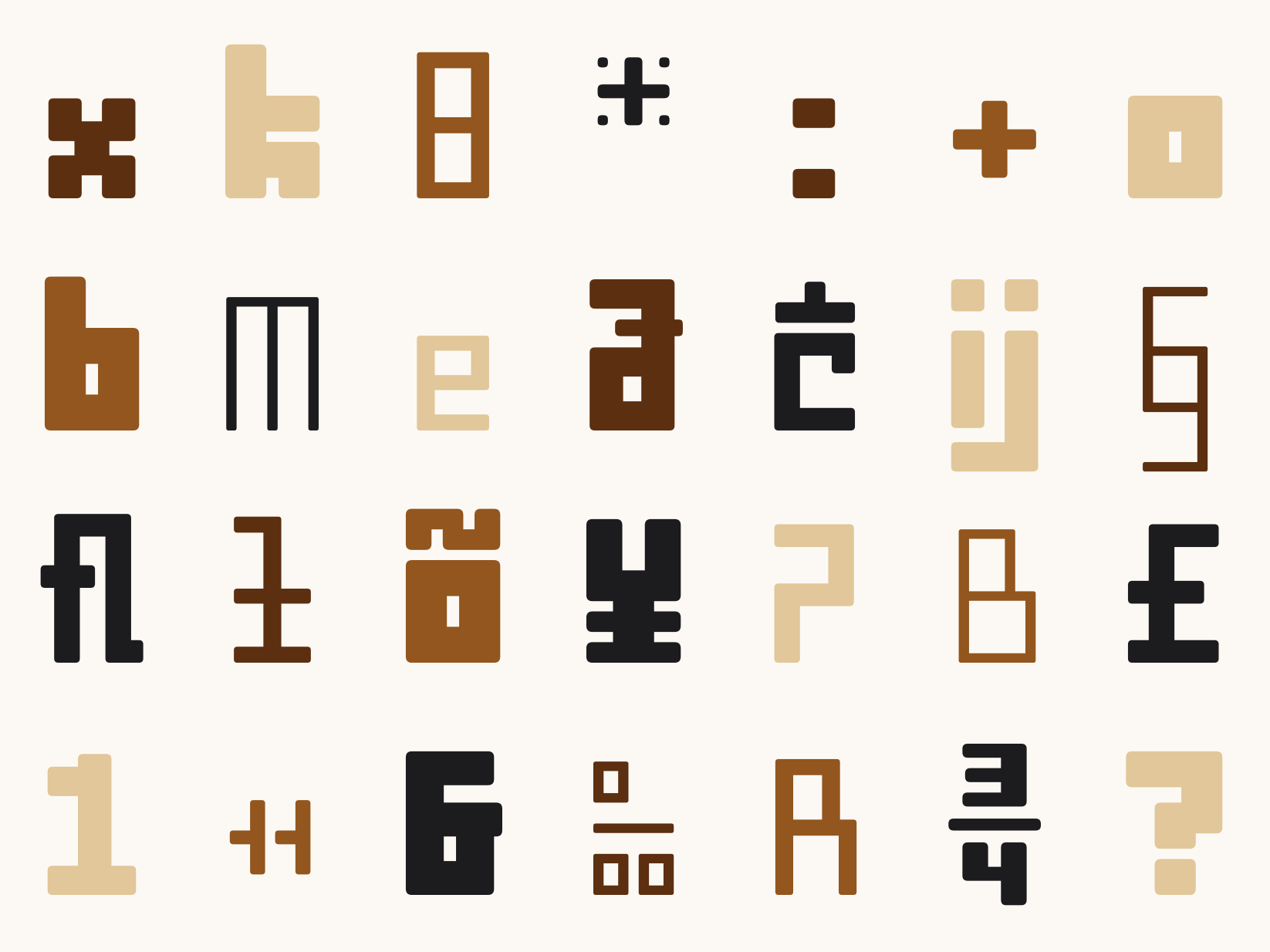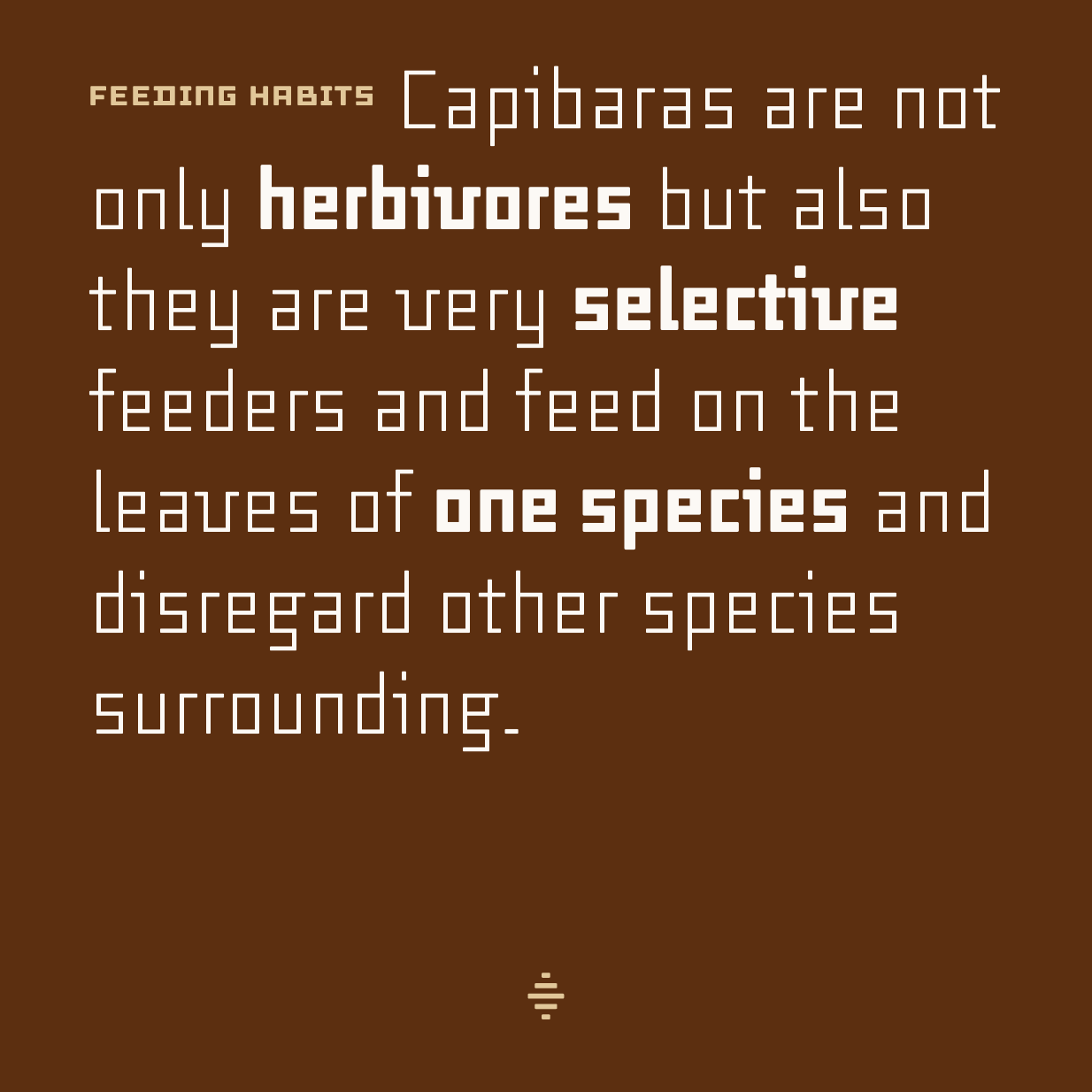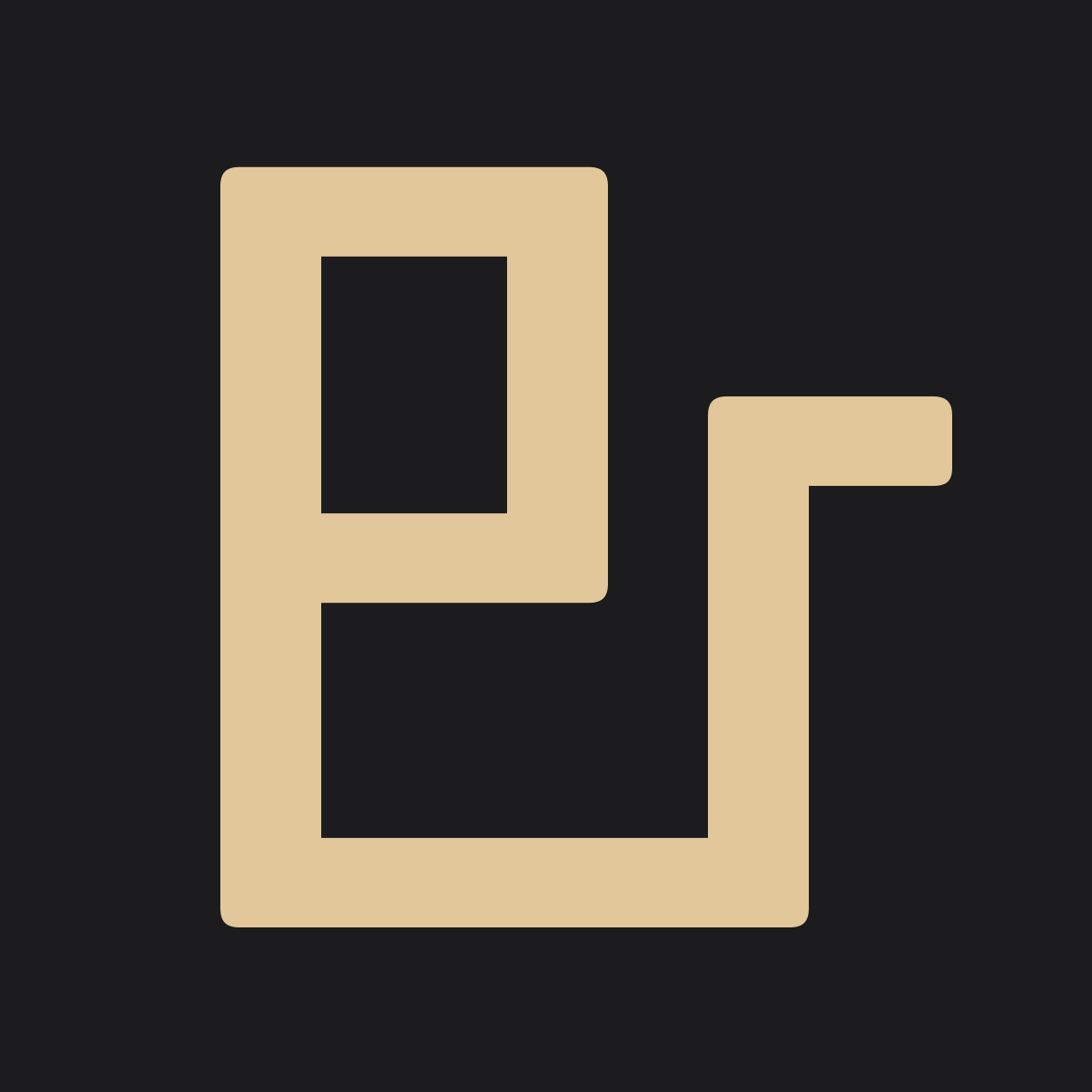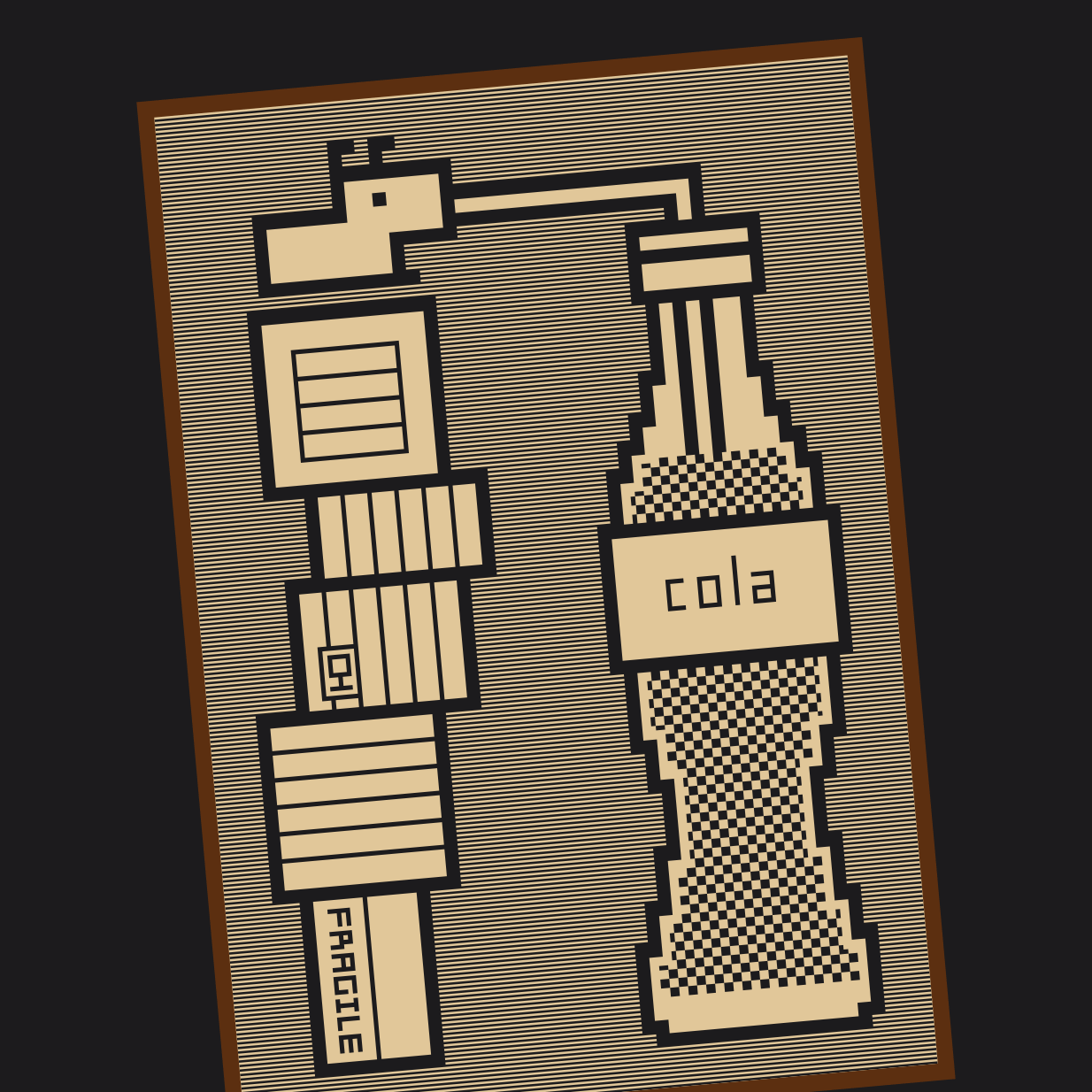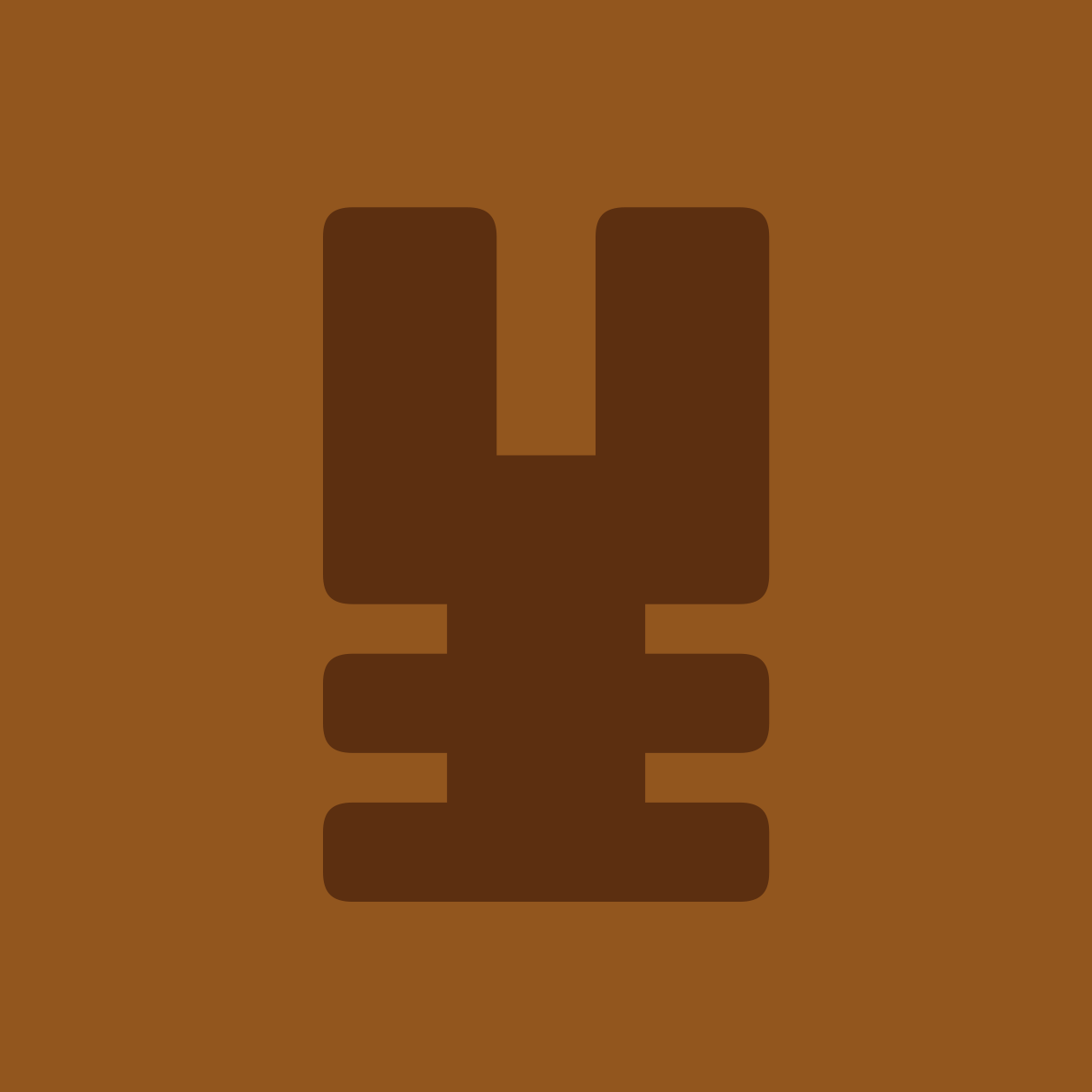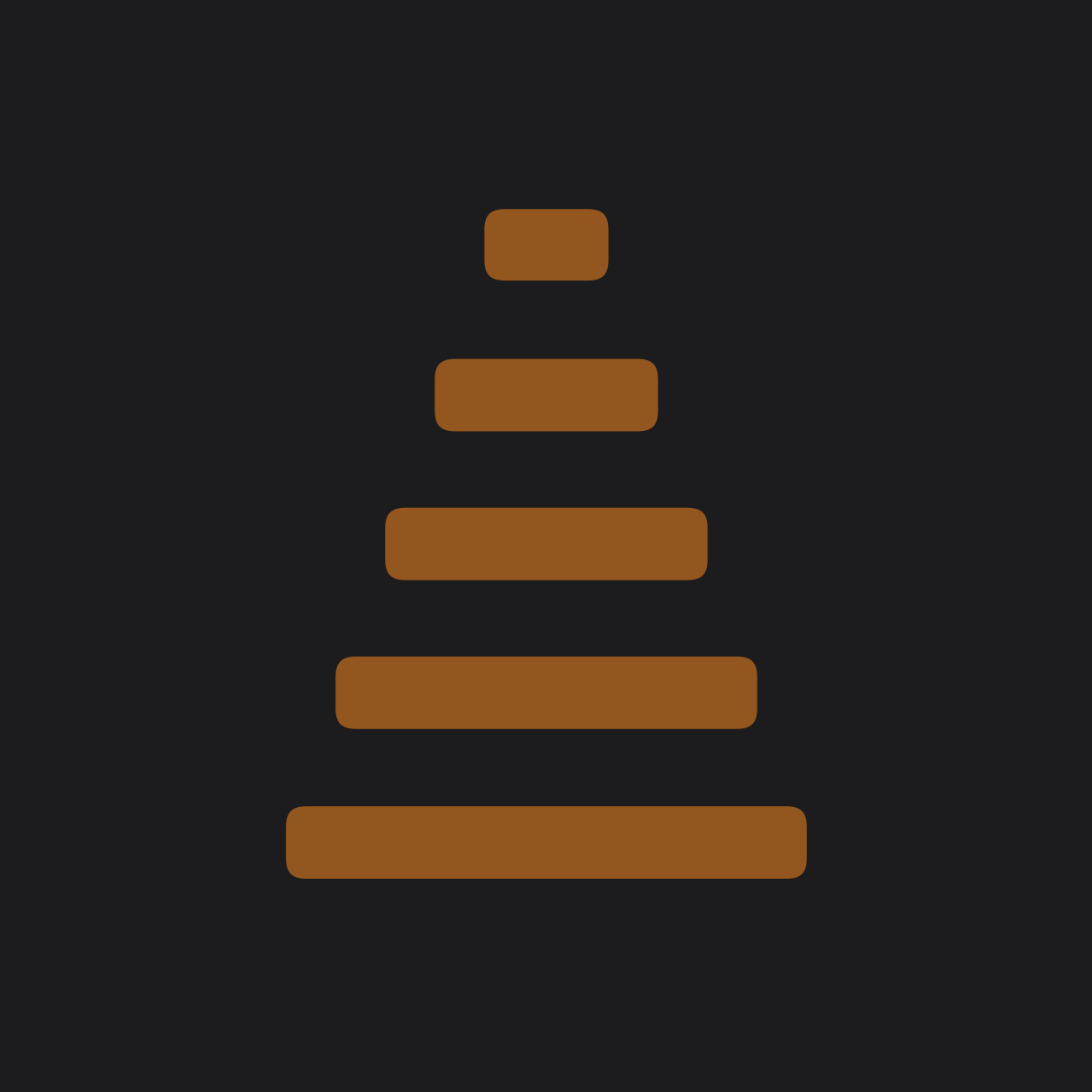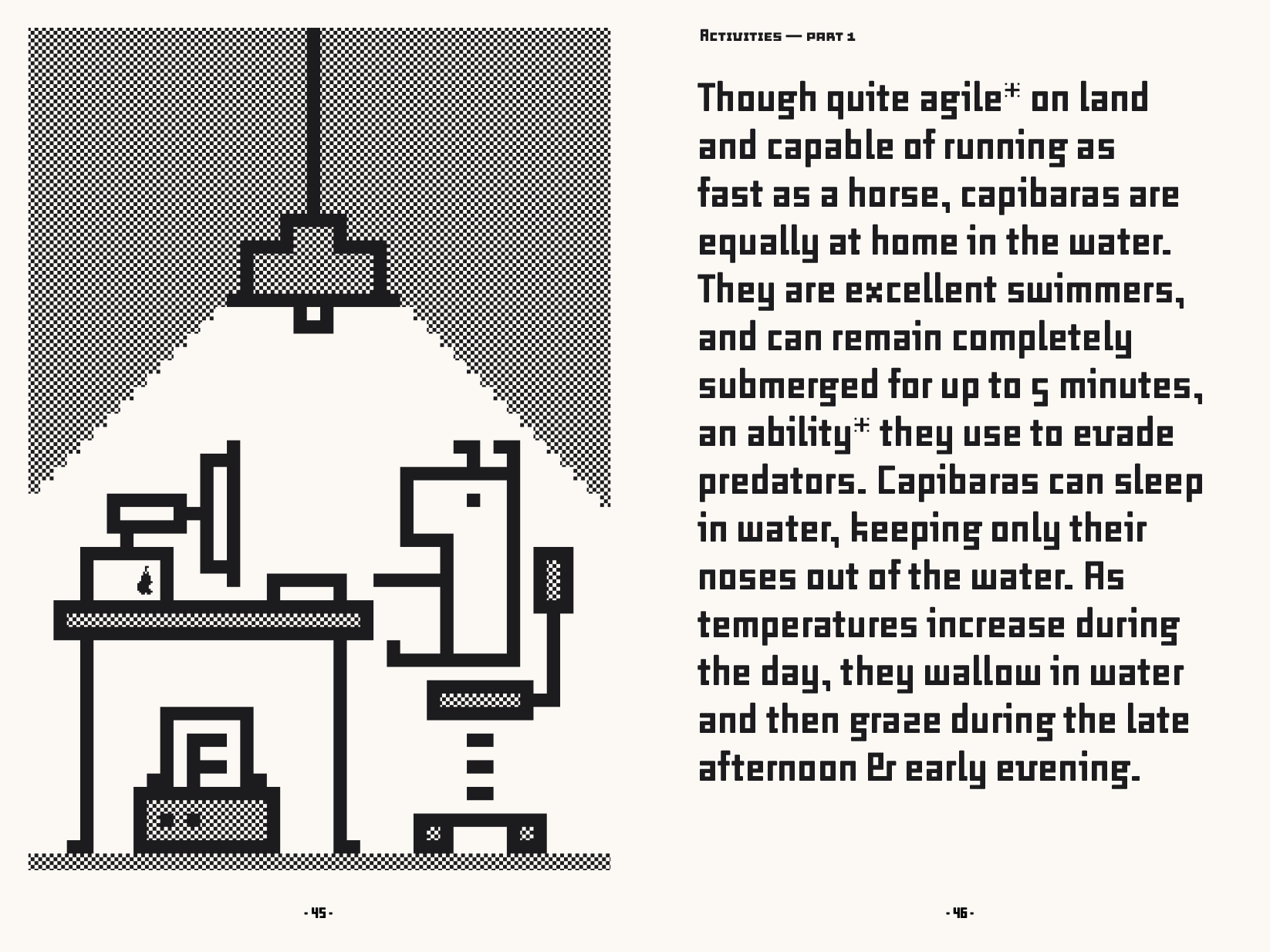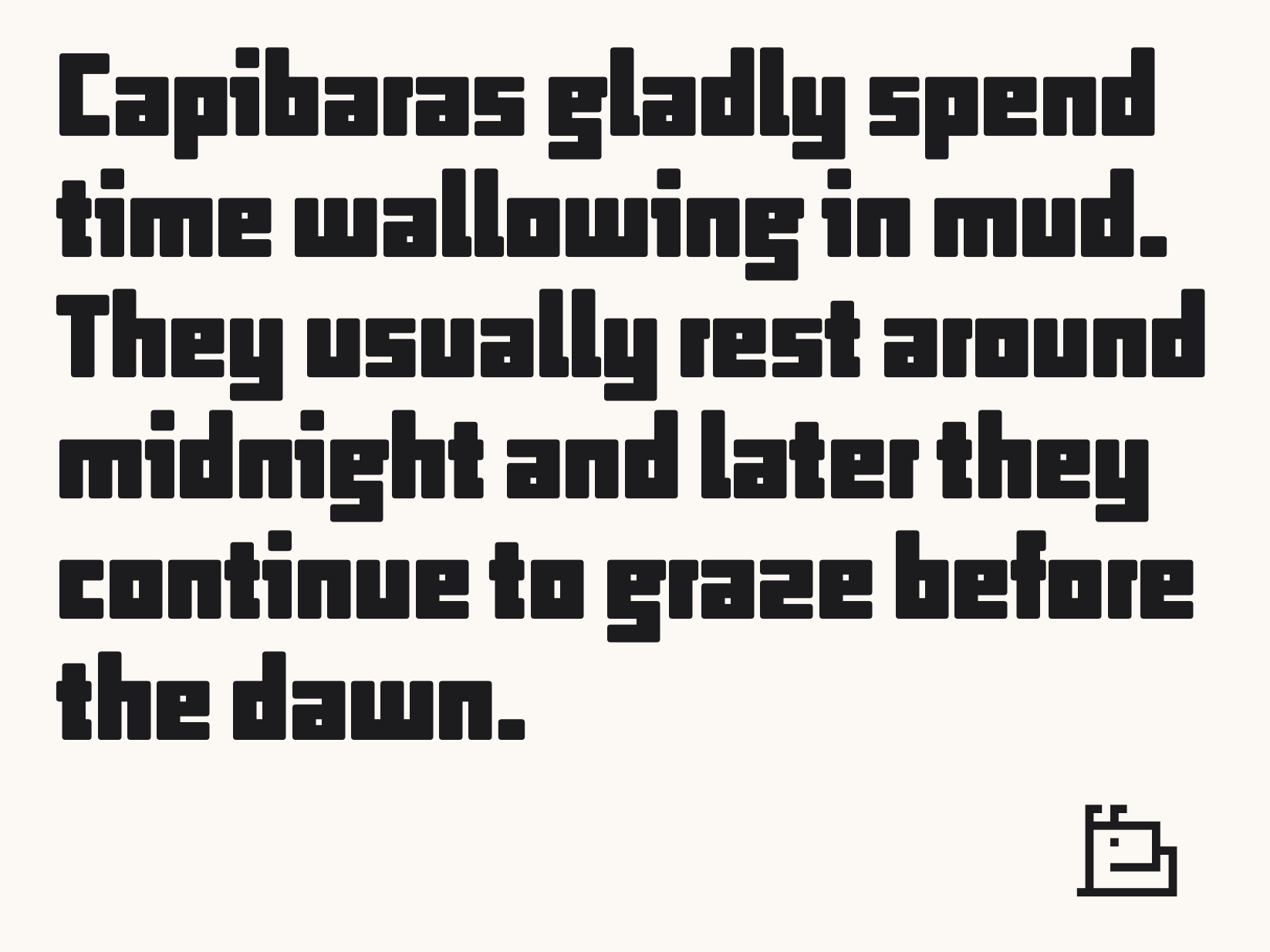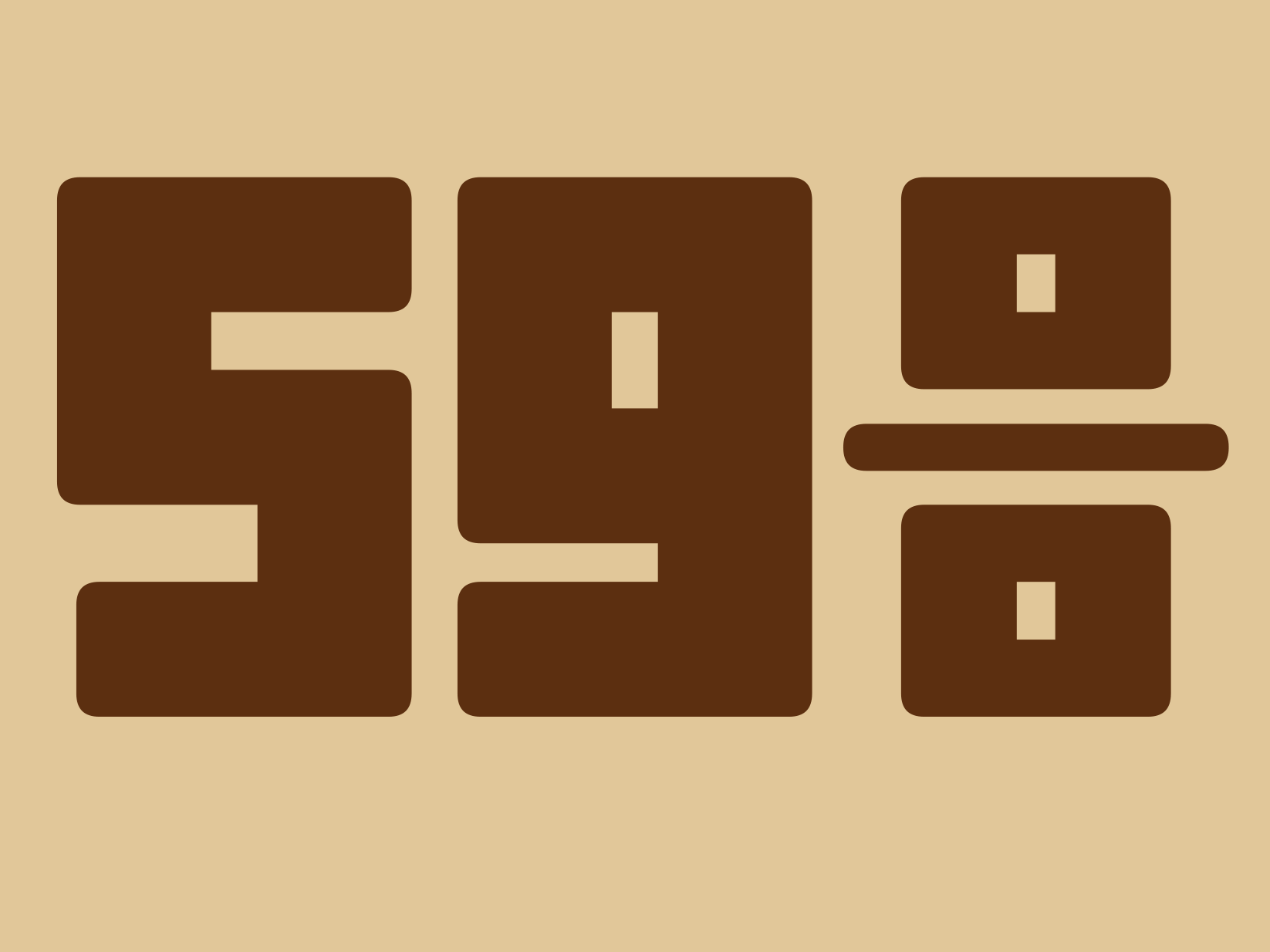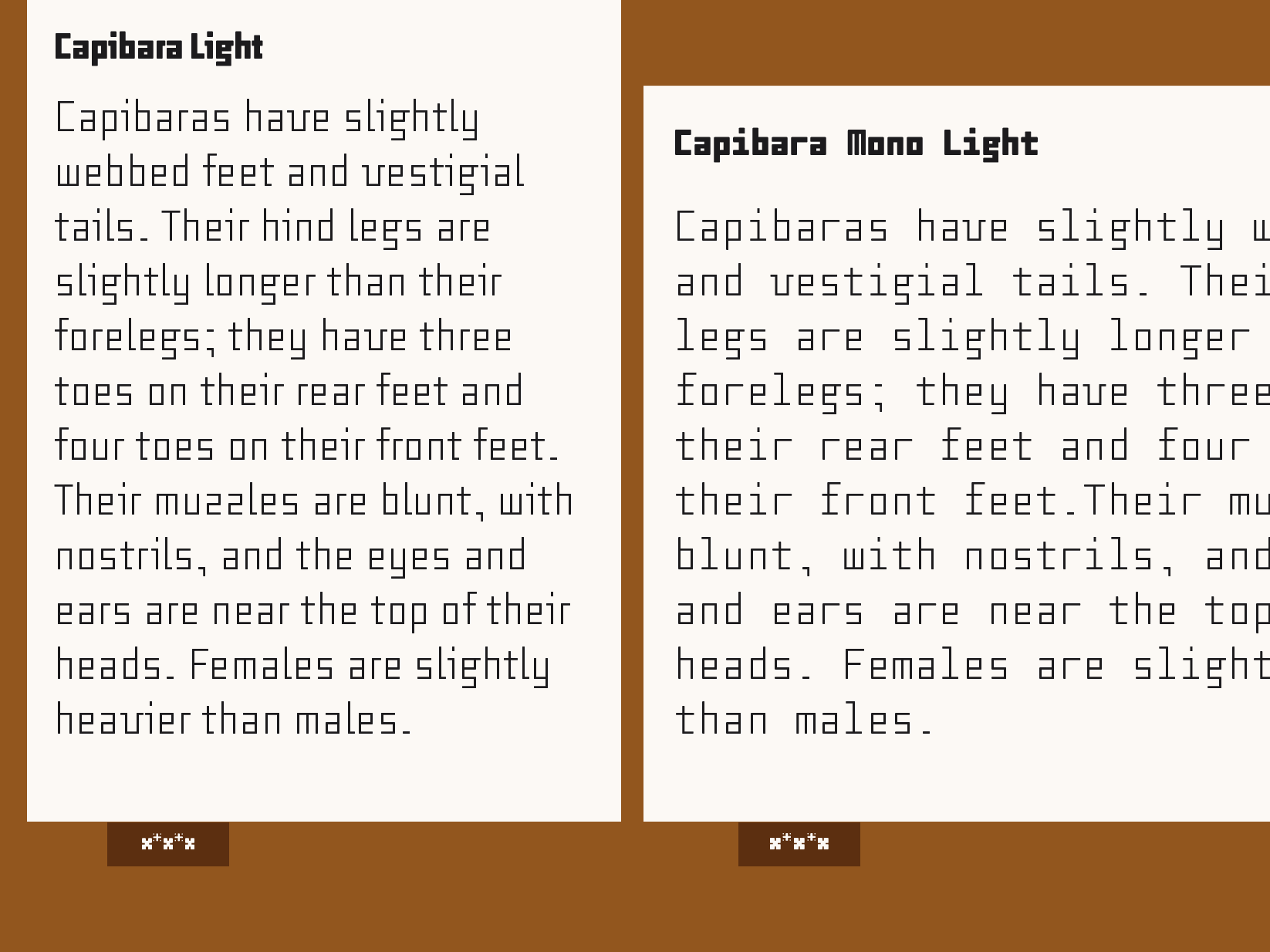
Capibara
Capibara is a geometric typeface family solely constructed of horizontal and vertical strokes. No curves. The design echoes the typographic experiments of the early 20th century by Constructivist artists such as Theo van Doesburg and H.Th. Wijdeveld. Yet Capibara manages to escape the cold harshness that characterises many modular designs: all corners are slightly rounded and the letterforms don’t adhere to a strict grid.
Capibara is named after Pieter’s favorite animal, the largest living rodent on this planet.
The family is available in proportional and monospaced variants, each in five weights. Capibara’s extensive character-set includes OpenType features such as small caps, several sets of numbers (fractures, lining and hanging figures) and covers all Latin-based European languages.